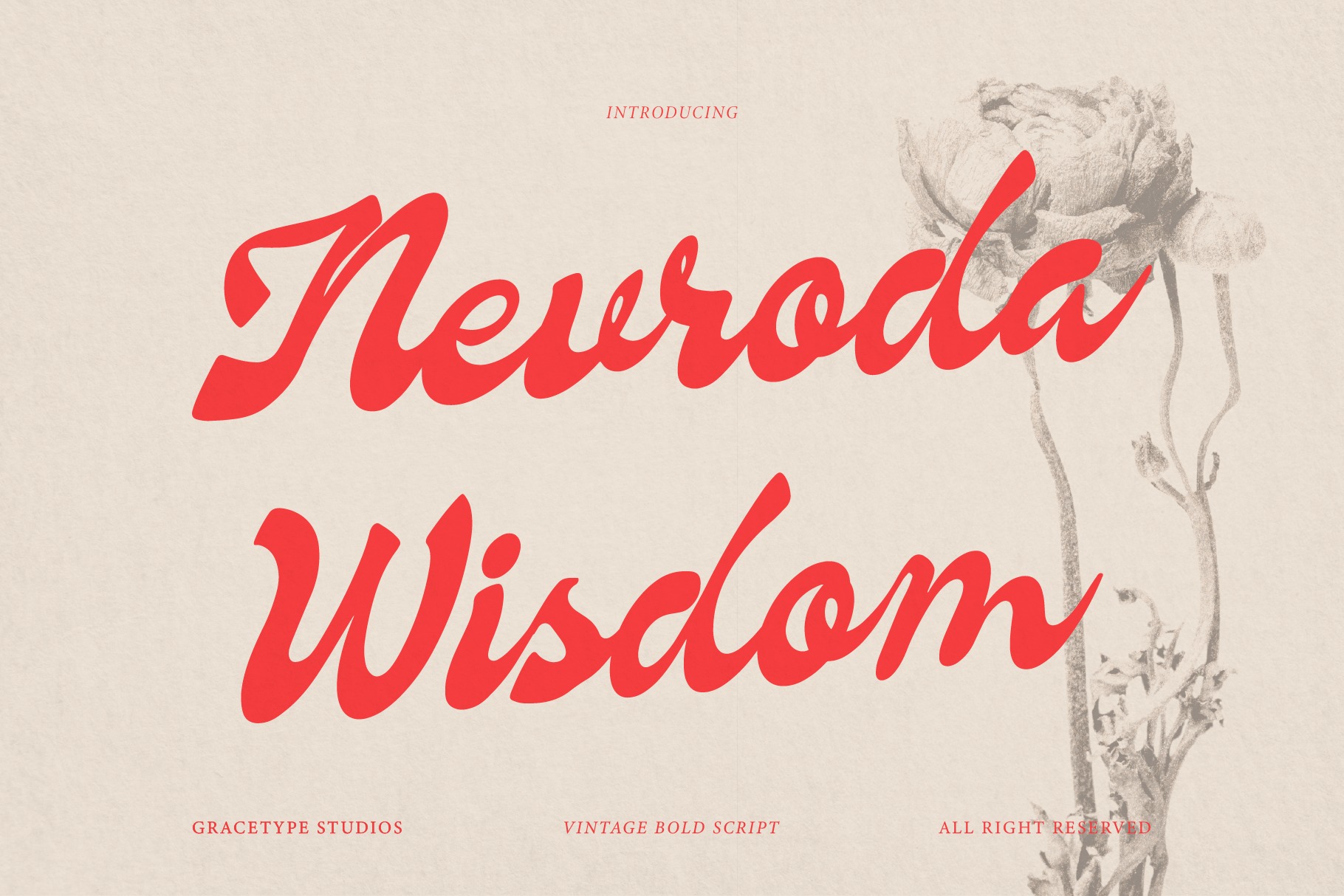
Nevroda Wisdom – Vintage Bold Script Font
Nevroda Wisdom – Vintage Bold Script Font is a stylish typeface that enhances visual appeal and works effortlessly in many design contexts.Nevroda Wisdom | Vintage Bold Script, from Gracetypestudio, suitable for any projects such as: logos, branding projects, homeware designs, product packaging, mugs, quotes, posters, shopping bags, t-shirts, book covers, name card, invitation cards, greeting cards, label, photography, watermark, special events, and all your other lovely projects that need a Script taste.
Standard glyphs
Alternate and Ligature
Fonts include multilingual support